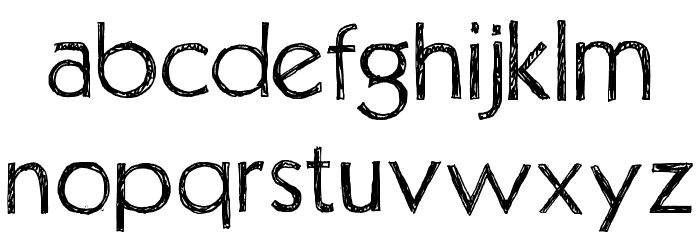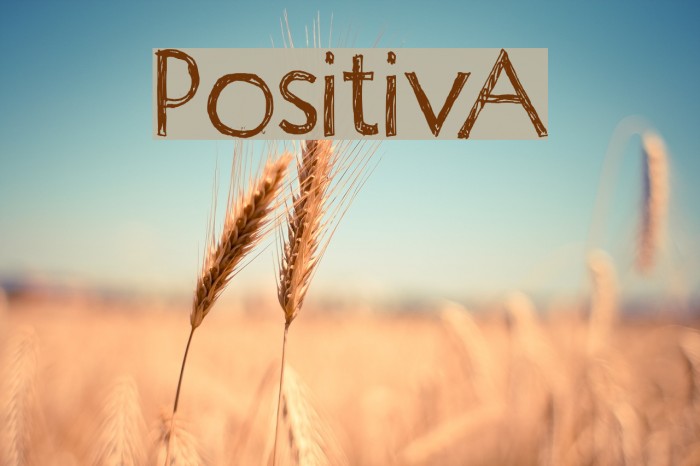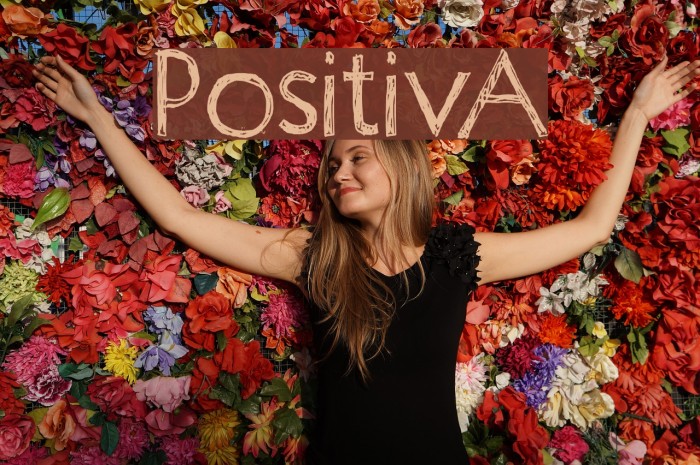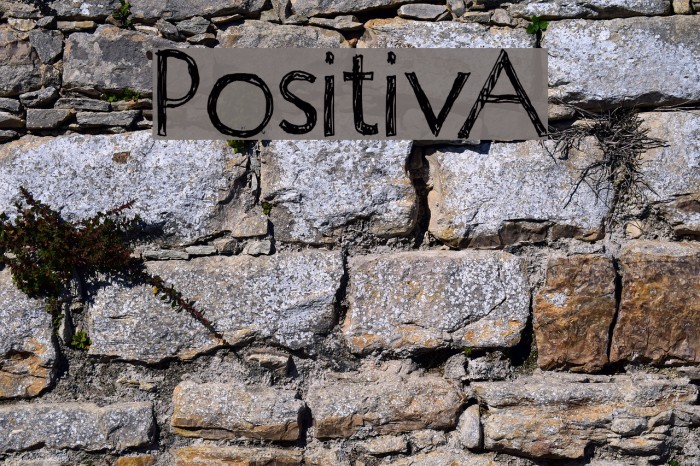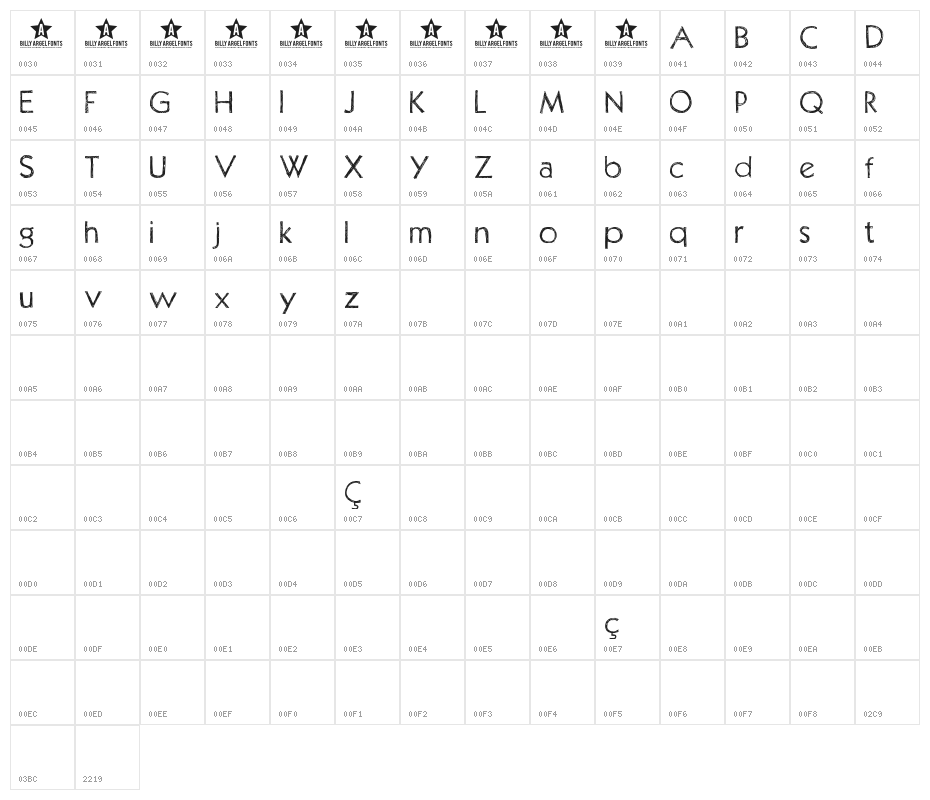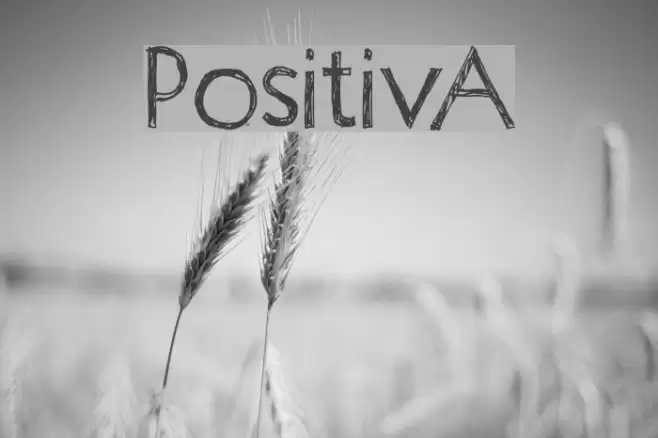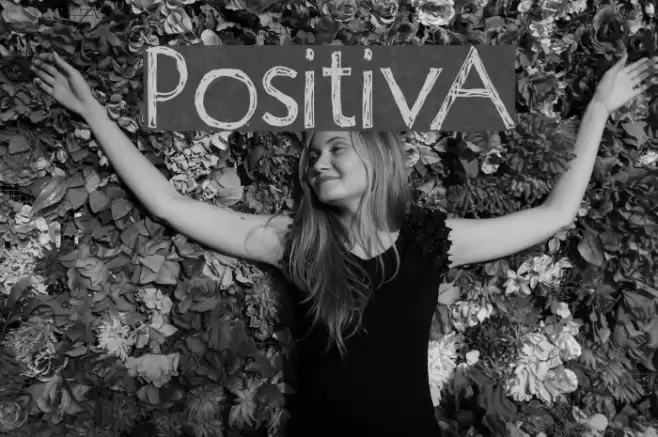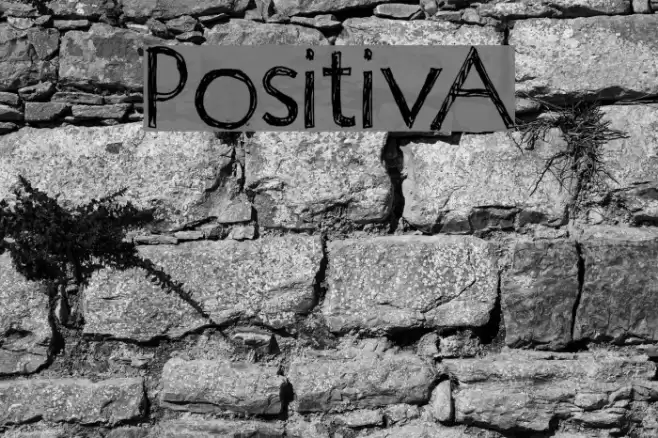
Positiv-A Font
This font features a playful and artistic style, characterized by its hand-drawn appearance. The letters are crafted with uneven strokes, giving them a textured and sketch-like quality. The uppercase and lowercase letters maintain a consistent style, with a slight slant that adds a dynamic feel. The numbers and special characters follow the same artistic theme, ensuring a cohesive look across all characters. This font's unique design makes it stand out, offering a creative and informal vibe that is perfect for projects needing a touch of whimsy.
A playful, hand-drawn font with a textured, sketch-like appearance.